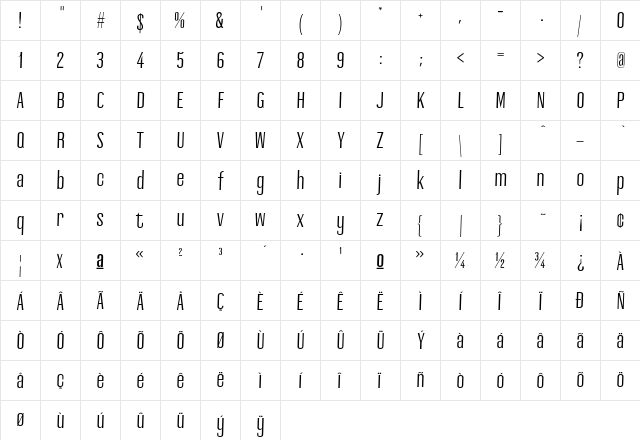
Ashemark Regular
Design Context for Ashemark Typeface
Ashemark offers clean, dependable letterforms without strong stylistic allegiance, making it a practical choice for designers who need flexibility.
Pro Tip: Use Ashemark in both headline and body roles to test its range before committing to a single application.